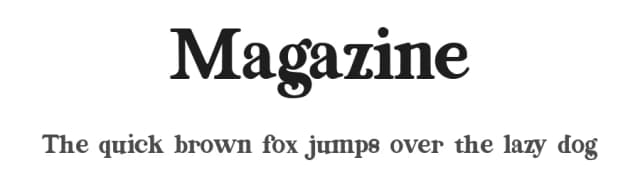
About Vilaka Font
Vilaka Specifications
| Font Family | Vilaka Font Demo Version |
| Glyph Count | 215 glyphs |
| Designer | Yesaya Amnestian |
Vilaka ships with 1 OpenType feature you can switch on in apps that support them (Illustrator, InDesign, Affinity, Figma, CSS font-feature-settings).
Vilaka supports 107 languages.
Vilaka Font is a versatile serif font that works for both headings and body text. Pair it with a contrasting sans-serif or slab serif font to add visual interest and a clear distinction between titles and body copy.
Vilaka Font
by Nestype